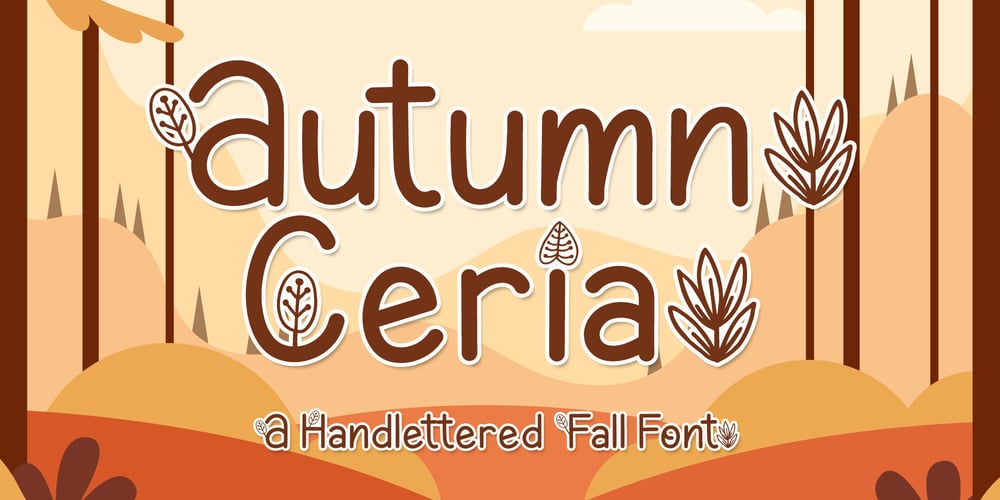
Autumn Ceria Font Family was designed by Agung Eko Nugroho and published by AEN Creative Studio. Autumn Ceria contains 2 styles and family package options. Autumn Ceria is a simple and adaptable handlettered font. This font is PUA encoded which means you can access all glyphs and swashes with ease!Add it confidently to your favorite creations and let yourself be amazed by the outcome generated.